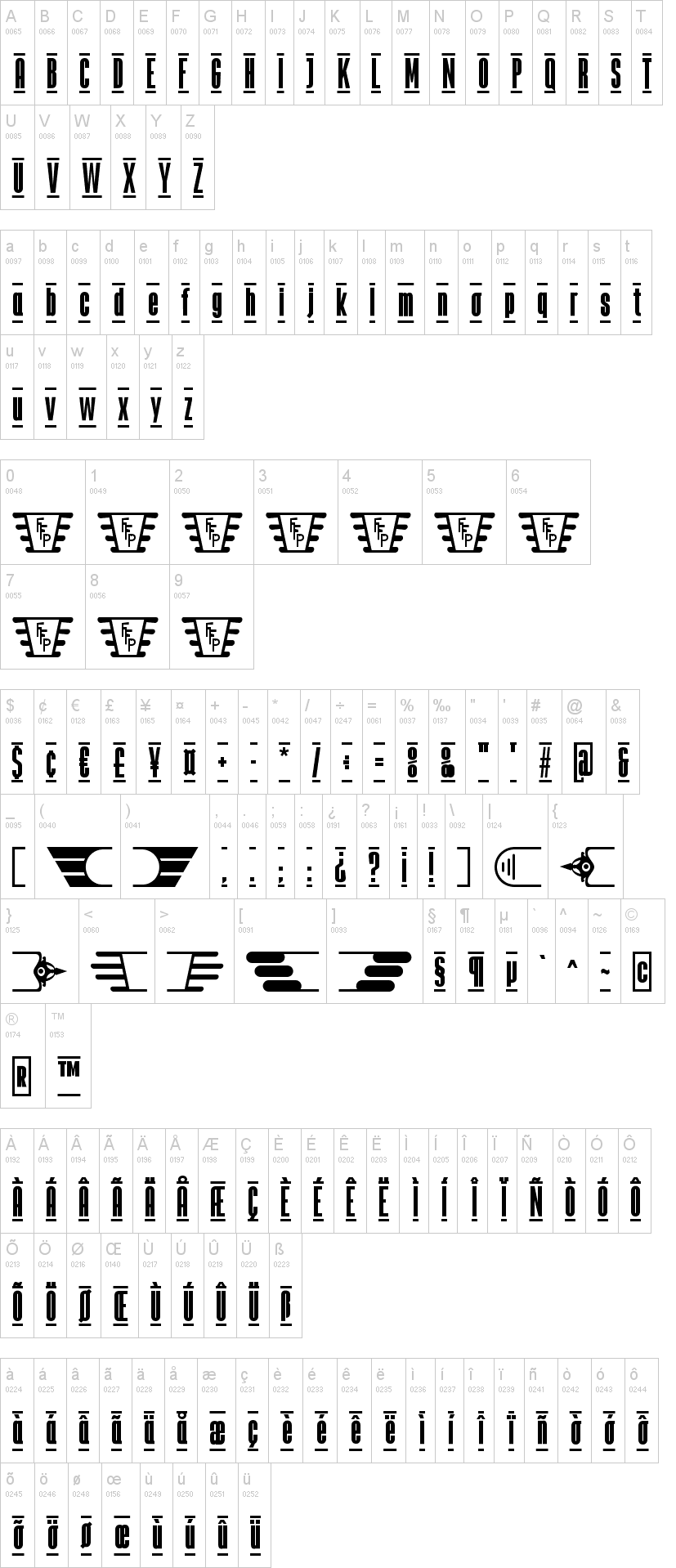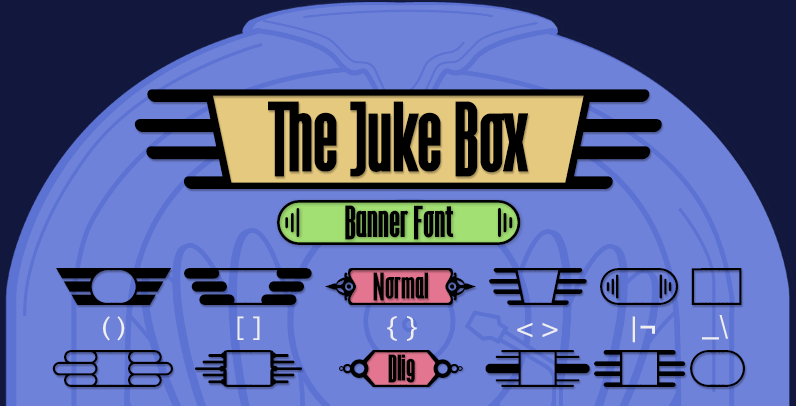
Note of the authorThe Juke Box font is inscribed in a frame, which forms a box, to close that box the font has 12 sets of closing of box with JukeBox style.
The Juke Box, has several closures box, use the following keys:
Keys: () [] {} <> |¬ _\
Apply discretionary ligatures in QuarkXpress, inDesign, Photoshop and Illustrator for the second set of ornate closures.